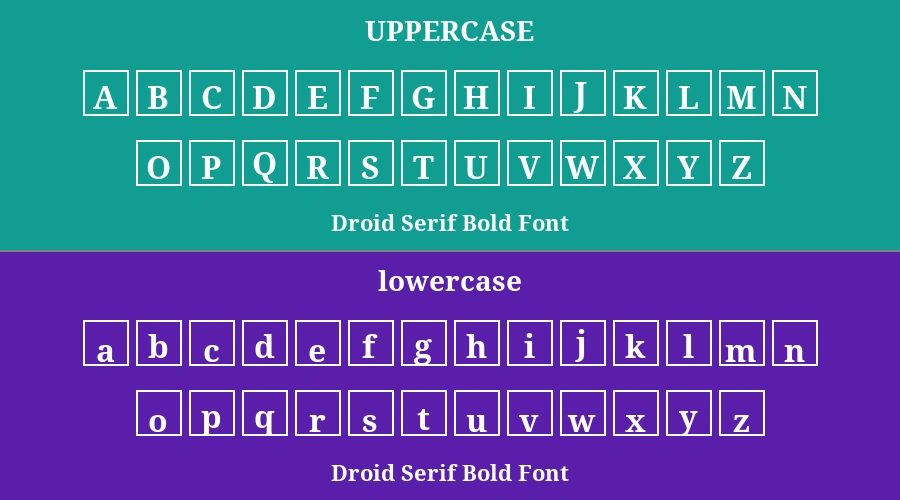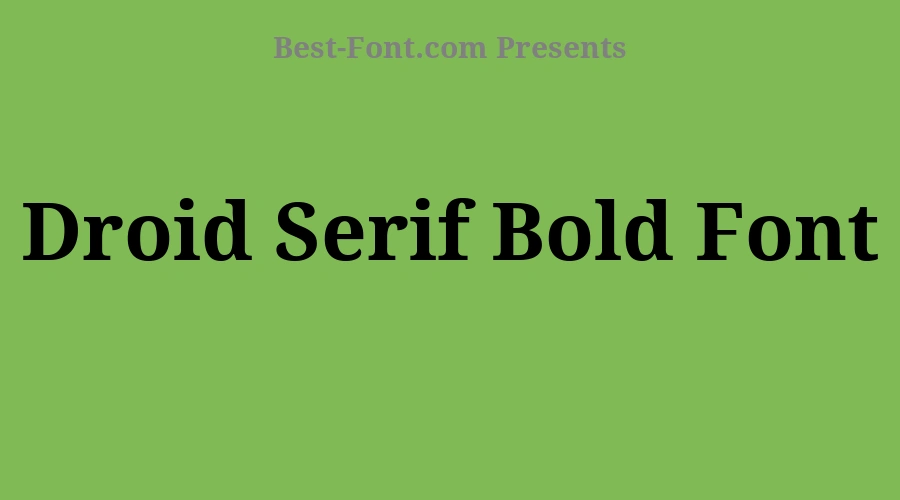
About Droid Serif Bold Font
Designed with precision, Droid Serif Bold Font merges bracketed serifs with technical accuracy in every character. This versatility makes it particularly effective for magazine layout, where tradition and ceremonial suitability directly impact communication quality. Each letterform demonstrates meticulous craftsmanship.
Technical excellence shines through elements like ink traps and decorative caps, enhancing typographic versatility. In creative titles settings, Droid Serif Bold Font proves its worth through superior compatibility. The thoughtful execution of aperture size and regulatory compliance ensures professional results.